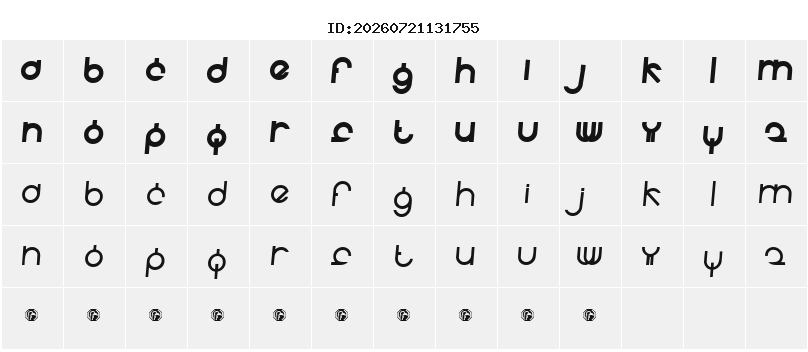
Fidelle Preview
• Font Name: Fidelle
• Full Font Name: Fidelle
About Fidelle.ttf
Fidelle.ttf is a modern, elegant sans-serif font designed for ultimate readability and visual harmony. Perfect for branding, headlines, web design, and print materials.